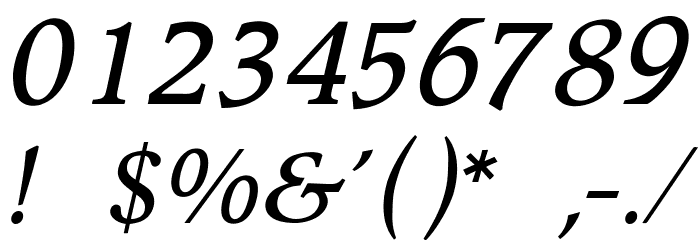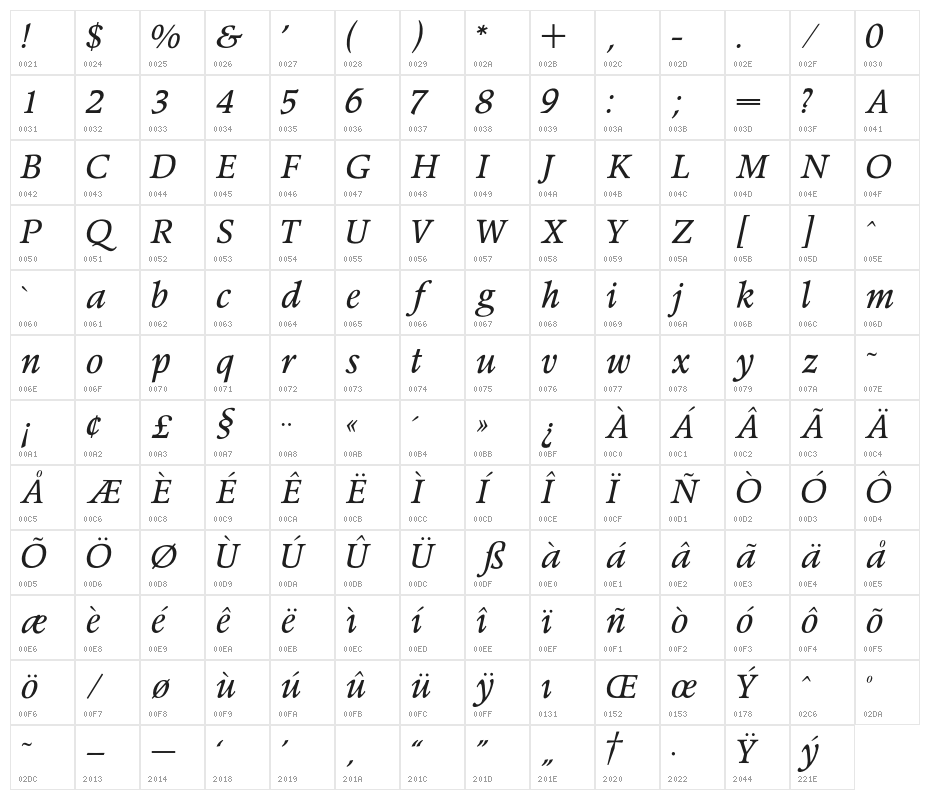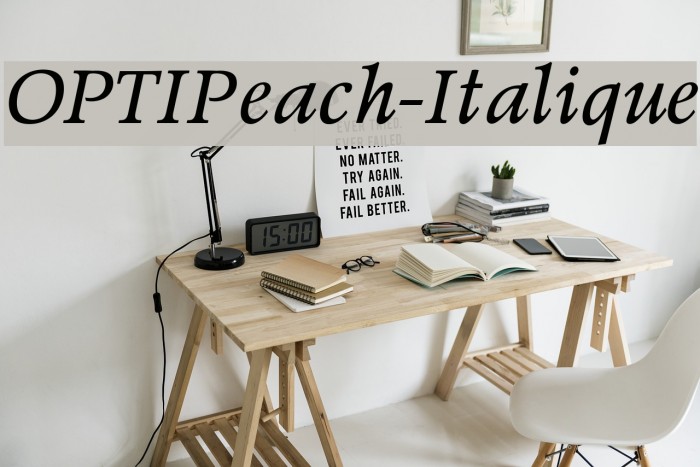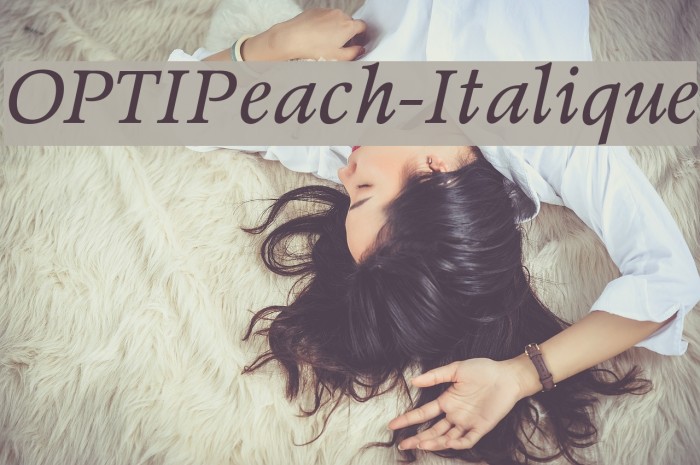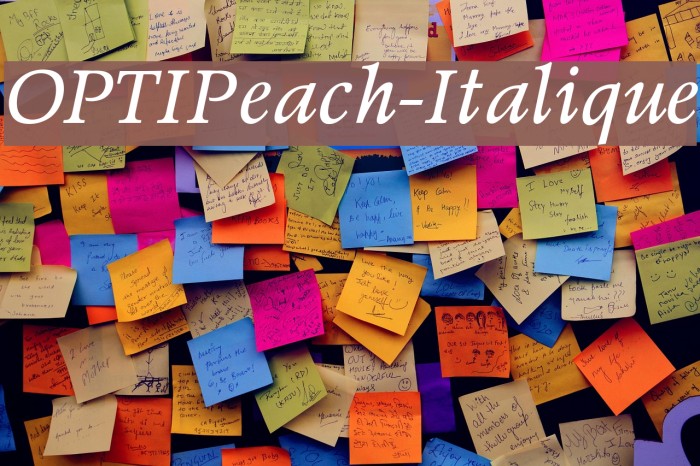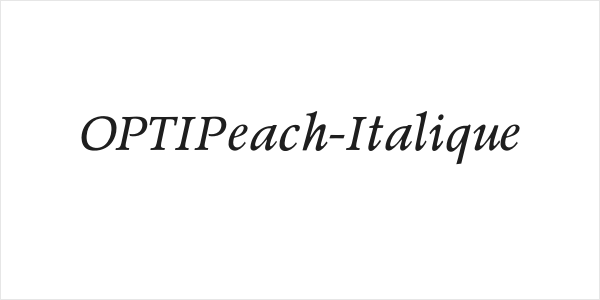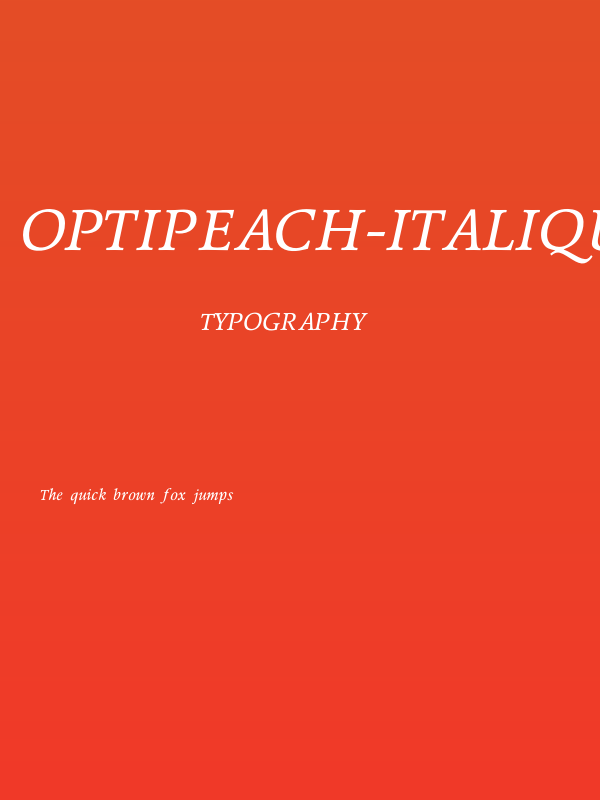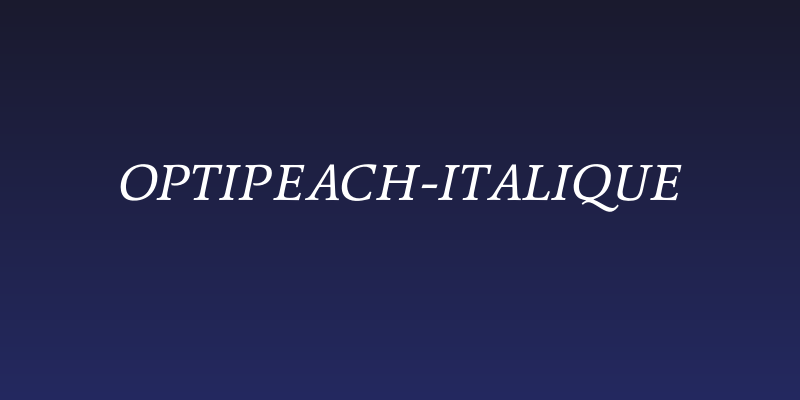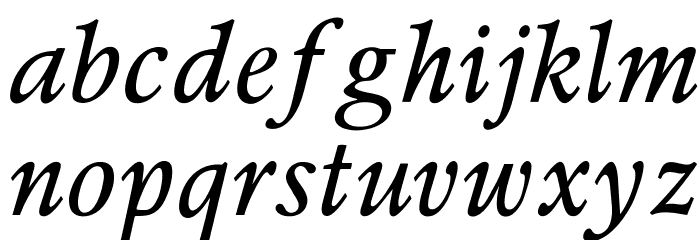
OPTIPeach-Italique Font
OPTIPeach-Italique Description
This font exhibits a classic italic style with elegant curves and a refined appearance. The uppercase letters are slightly slanted, adding a sense of motion and sophistication. The lowercase letters maintain a consistent slant, enhancing readability while preserving a stylish flair. Numbers are well-proportioned and align seamlessly with the overall design. Special characters are thoughtfully crafted, ensuring they complement the alphabetic characters. The font's smooth transitions and balanced weight make it suitable for a variety of applications, offering both aesthetic appeal and functional versatility.